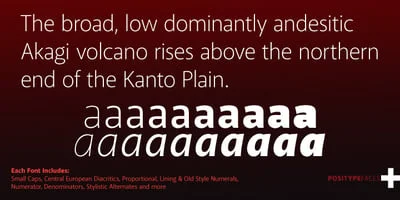
Akagi Font
Akagi Font is authentically designed for Japanese restaurant branding, martial arts dojo signage, anime production materials, traditional tea ceremony communications, sushi bar menus, Japanese cultural events, zen meditation center branding, and contemporary Asian fusion campaigns. This harmonious typeface excels in environments requiring Japanese authenticity and cultural sophistication, making it perfect for Japanese businesses, martial arts organizations, cultural institutions, and any business needing to communicate Japanese heritage and zen philosophy through distinctive typography.
What makes Akagi Font so exciting is its masterful balance between traditional Japanese aesthetic principles and contemporary design functionality that captures the essence of Japanese cultural refinement and martial discipline. The font features precisely crafted letterforms with clean geometric lines and harmonious proportions that reflect the minimalist beauty of Japanese design and the disciplined structure of martial arts traditions. Its cultural construction and zen character make it incredibly effective for brands wanting to communicate authenticity, discipline, and Japanese sophistication while appealing to audiences who appreciate Japanese culture and martial arts philosophy.
Akagi Font typically includes multiple weights and styles such as Light, Regular, Medium, and Bold, often accompanied by condensed variants optimized for Japanese aesthetic applications. The font family frequently features additional character sets including Japanese symbols, martial arts icons, and cultural glyphs that enhance its authentic appeal. Each weight maintains the font's distinctive harmonious character while offering different levels of cultural emphasis, providing designers with comprehensive tools for creating authentic Japanese brand identities and culturally respectful communication materials.
Martial arts professionals will find that Akagi Font delivers outstanding performance in both traditional dojo applications and contemporary Japanese marketing materials requiring cultural authenticity. The font's carefully crafted character set includes culturally appropriate letterforms, Japanese symbols, and martial elements essential for dojo branding, Japanese restaurant materials, and cultural communications. Its disciplined design makes it particularly effective for martial arts schools, Japanese restaurants, cultural centers, and tradition-oriented marketing campaigns requiring authentic Japanese presence.
The meticulous attention to Japanese proportions and zen spacing ensures that Akagi Font maintains excellent readability while delivering maximum cultural impact. Its tradition-inspired design language makes it particularly effective for martial arts applications, Japanese cuisine, cultural education, and zen communications. The font's harmonious appearance creates strong cultural connections while remaining highly functional for projects requiring clear communication to martial arts enthusiasts and Japanese culture appreciators.
For designers seeking a typeface that embodies Japanese discipline with cultural authenticity, Akagi Font represents an exceptional choice that will honor any project with its distinctive harmony and Japanese character.